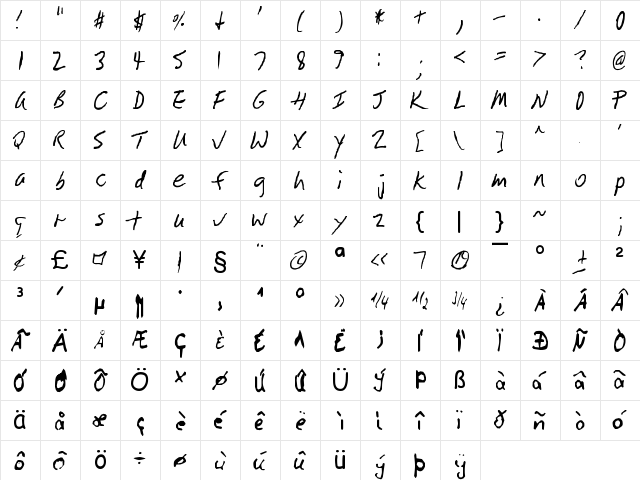
QEVernKits Regula Font Preview
QEVernKits Regula
QEVernKits Regula Font Details
Design Context for QEVernKits Typeface
QEVernKits takes a measured approach to typography — its balanced proportions and neutral character make it a reliable workhorse for both digital and print work.